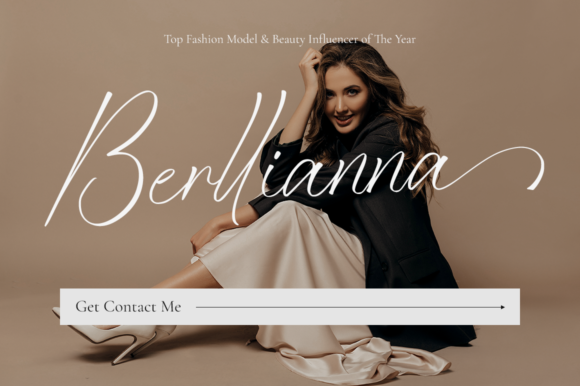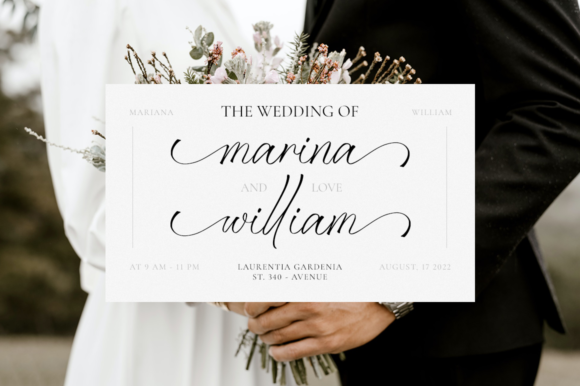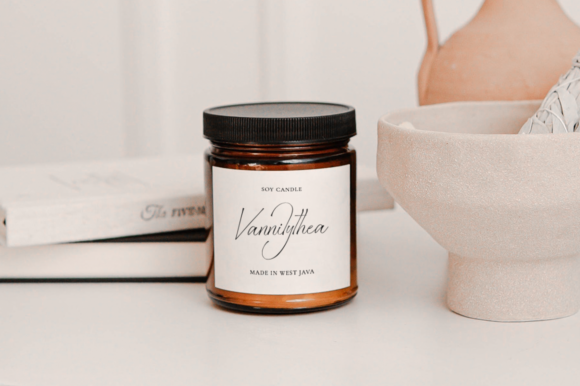
Introduction to Moodyloske Font
Have you ever found yourself stuck in a creative rut, scrolling through design inspiration boards, searching for that one perfect font to elevate your project? I know I have. It’s those ‘aha’ moments when you stumble upon a hidden gem that truly makes your design come alive. For me, that gem was the Moodyloske Font – a high-quality script font that exudes elegance and sophistication.
This stunning font has become a go-to resource for designers looking to add a touch of whimsy and personality to their creative projects. With its unique, flowing style and transparent background, Moodyloske Font is perfect for anyone looking to add a touch of sophistication to their designs. Whether you’re working on a branding project, creating a wedding invitation, or designing a logo, this font is sure to impress.
Key Features of Moodyloske Font
- High-quality, professional design ideal for creative projects
- Unique, modern aesthetic with a transparent background, perfect for backgrounds and overlays
- Supports a wide range of languages, making it a valuable resource for international design
- Designed to be versatile and adaptable, suitable for use in various design contexts, from digital to print
Honest Review: Moodyloske Font
I recently had the chance to explore the Moodyloske Font, and I must say it’s a high quality design resource that caught my attention. The transparent background is a nice touch, allowing for seamless integration into any creative project.
- ✨ Unique aesthetic: The Moodyloske Font has a distinctive style that sets it apart from other fonts.
- ✨ Versatile: It can be used for a variety of projects, from logos to typography-heavy designs.
- ⚠️ Limited character set: The Moodyloske Font may not have a comprehensive character set, which could be a limitation for some projects.
- ⚠️ Not suitable for small text: The font’s unique style may make it difficult to read in small text sizes.
Overall, I was impressed with the Moodyloske Font, and I think it’s a great addition to any designer’s toolkit. While it may have some limitations, its unique aesthetic and versatility make it a valuable resource for creative projects.
Introduction to Moodyloske Font
The Moodyloske Font is a unique and versatile design resource that offers a high quality, transparent background perfect for creative projects. It’s a free download that can be used in a variety of applications to add a touch of sophistication and elegance.
Tips for Getting the Most Out of Moodyloske Font
To get the most out of the Moodyloske Font, try experimenting with different font sizes, colors, and styles to create a unique and eye-catching design. You can also use the font in combination with other design elements, such as graphics and images, to add depth and interest to your design.
Common Use Cases for Moodyloske Font
The Moodyloske Font is a versatile design resource that can be used in a variety of applications, including graphic design, digital art, and typography. Some common use cases for the font include creating logos, branding materials, and marketing materials.